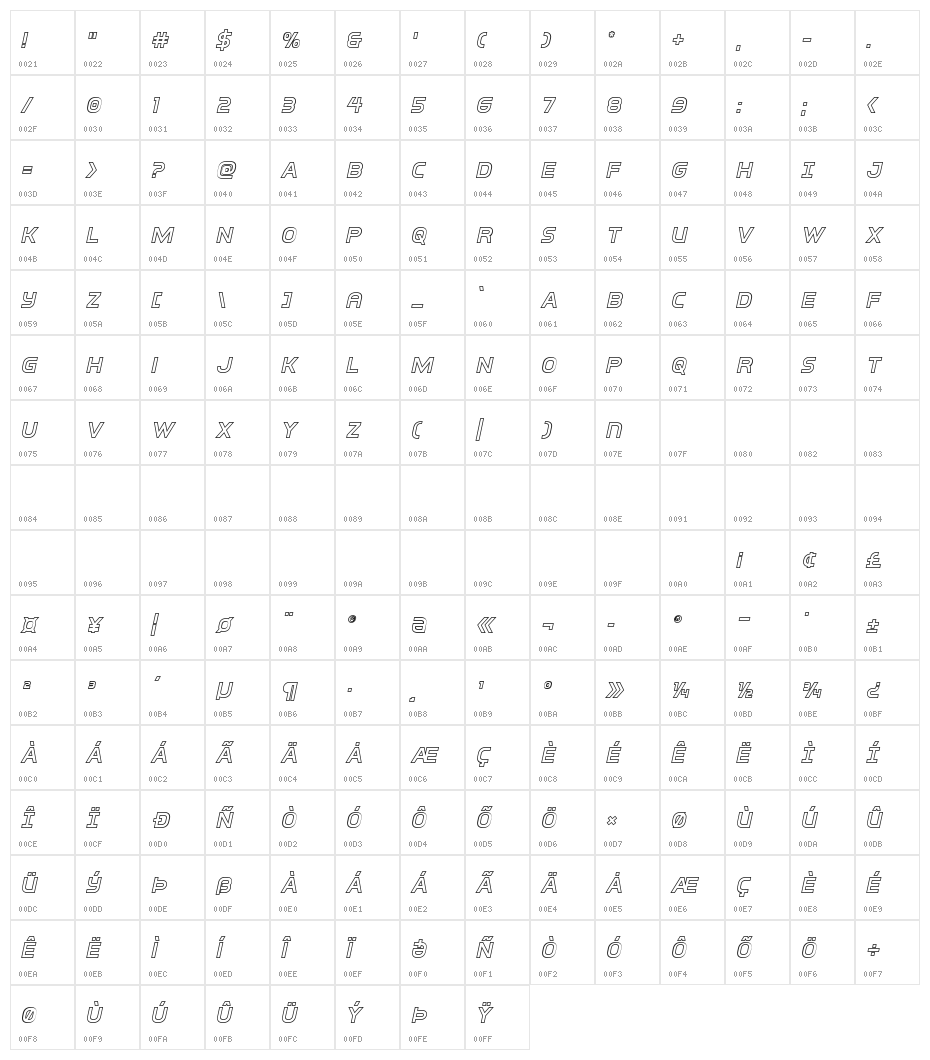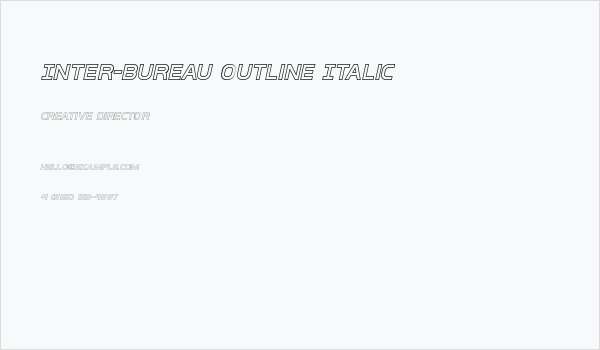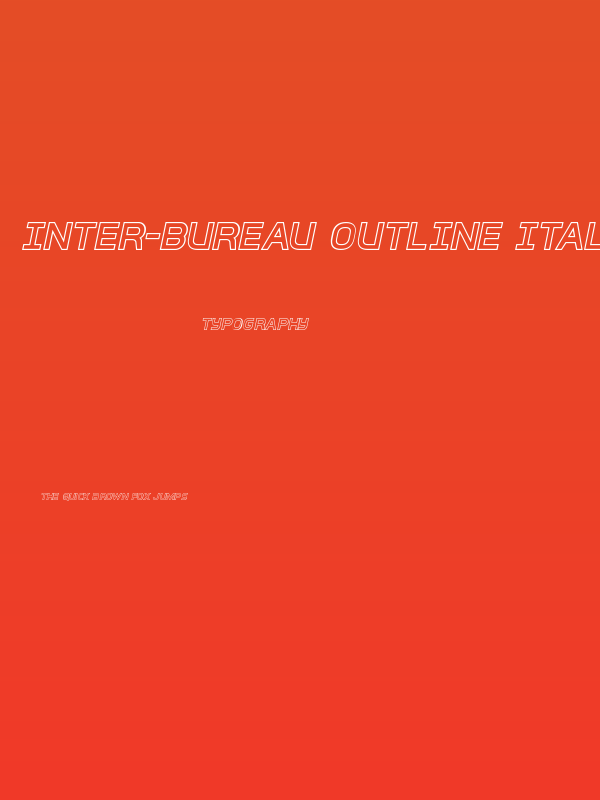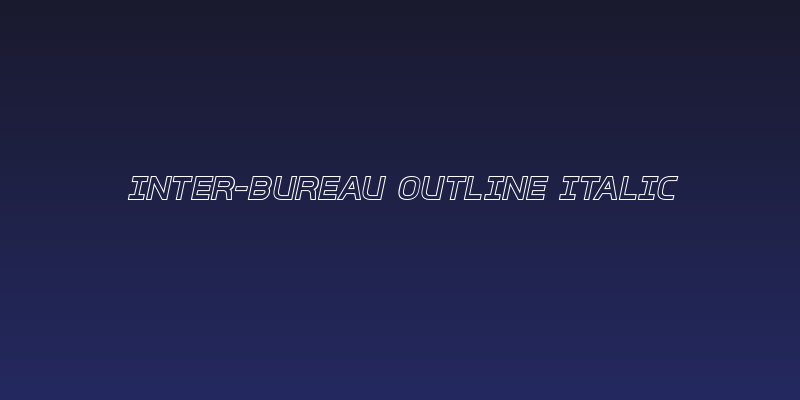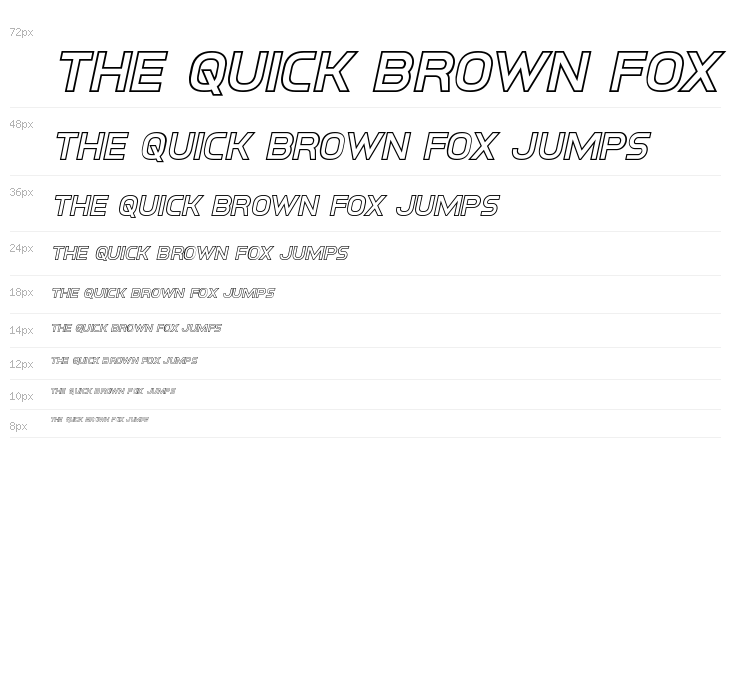
Inter-Bureau Outline Italic Font
Inter-Bureau Outline Italic Description
This font features a modern, geometric design with a distinct outline style. The italicized letters add a sense of motion and dynamism, making it suitable for contemporary and edgy designs. The uppercase and lowercase letters maintain a consistent width, providing a uniform appearance. The numbers and special characters are crafted with the same outline effect, ensuring cohesion across all elements. The font's clean lines and open spaces contribute to its readability, while the outlined style offers a unique visual appeal.
| Proposed Projects | Ideal for branding, posters, and digital media where a modern and stylish impact is desired. |